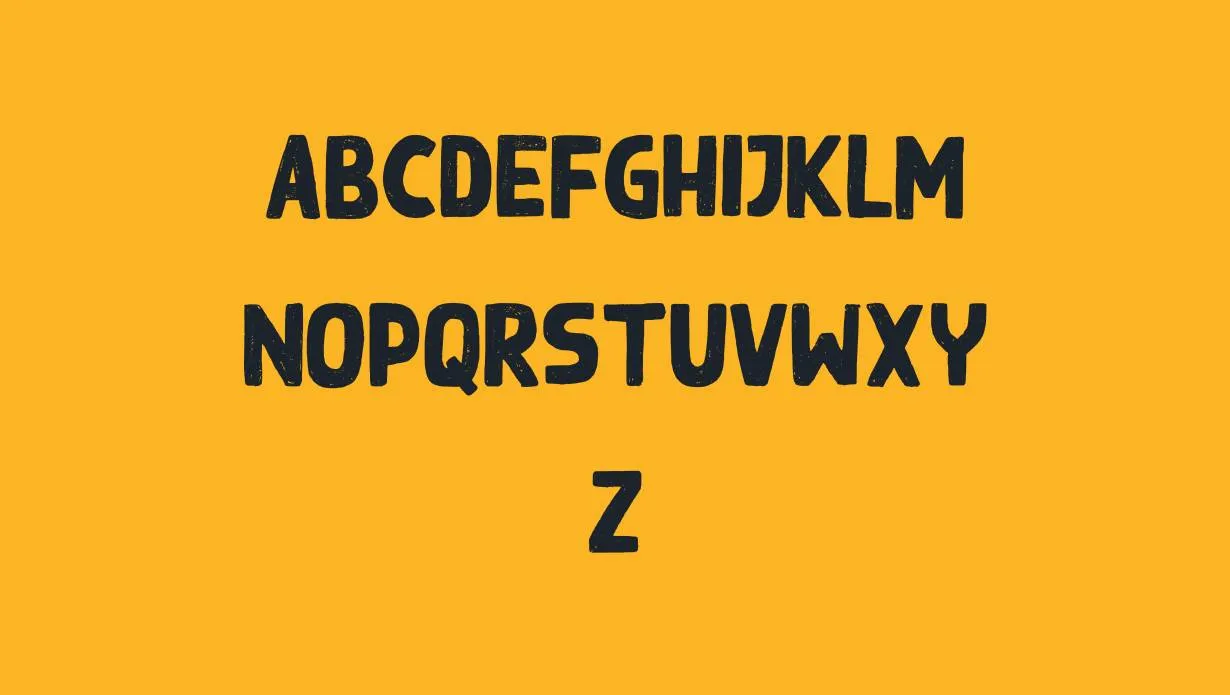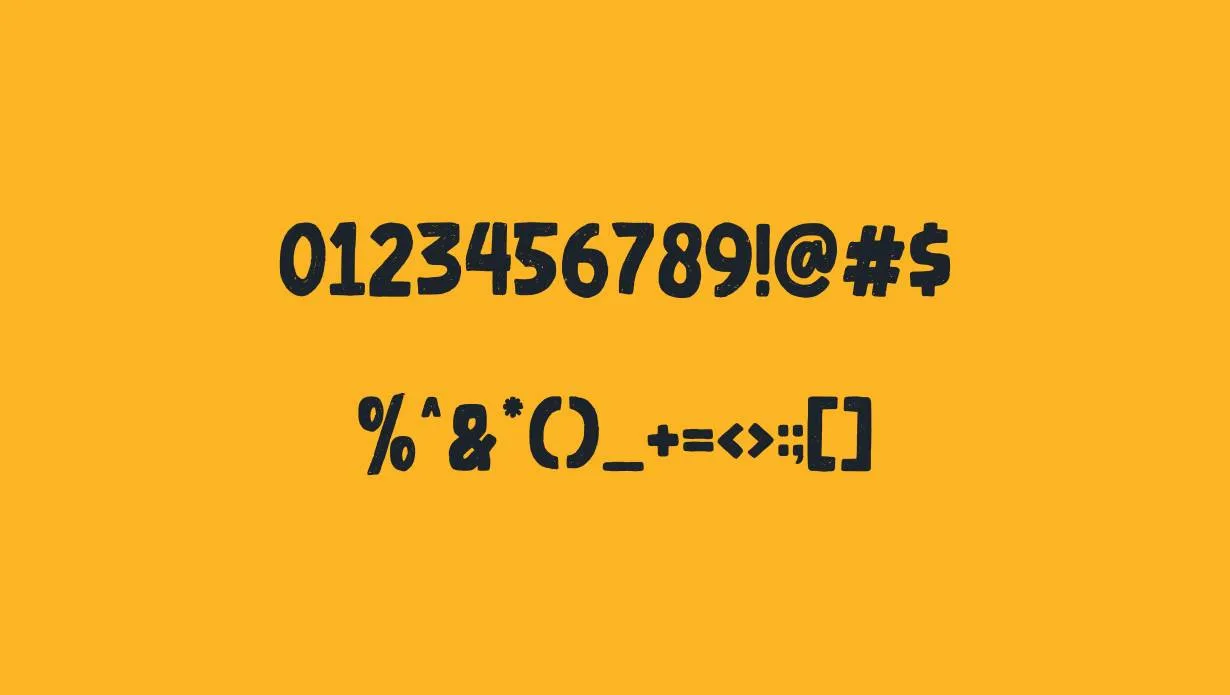
Black Ground Font has managed to gain a lot of fame in a short time because of its elegant and attractive characters. If you want to astound the viewers you should pair this typeface with linik sans font. This combination will help you stand out from others.
The designer of this fabulous typeface is none other than Risman Ginarwan and Garisman Studio published it. This font is available in Single regular weight.